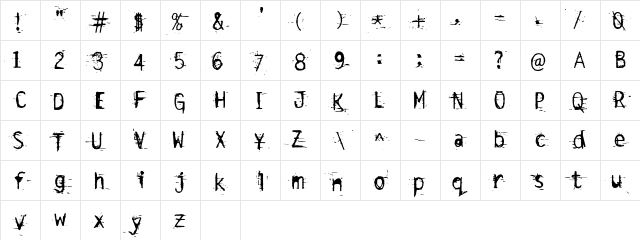
Escalido Streak Free Font
Escalido Streak
Style: Streak
Escalido Family
Escalido Streak
Design Context for Escalido
Escalido is a composed and adaptable typeface that performs quietly and consistently across a wide range of design contexts.